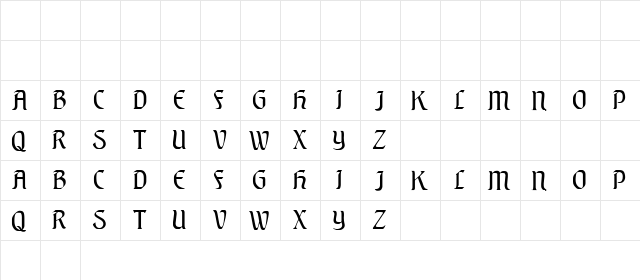
Elysian Regular
Design Context for Elysian Typeface
Elysian is a composed and adaptable typeface that performs quietly and consistently across a wide range of design contexts.